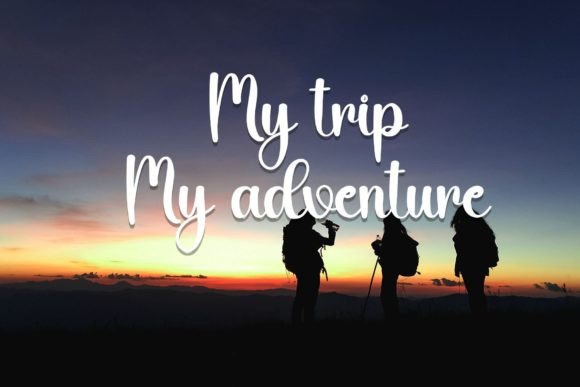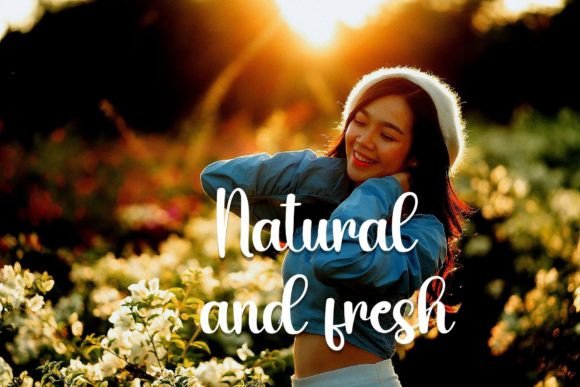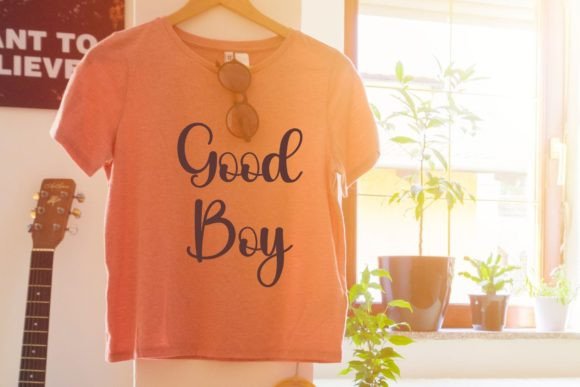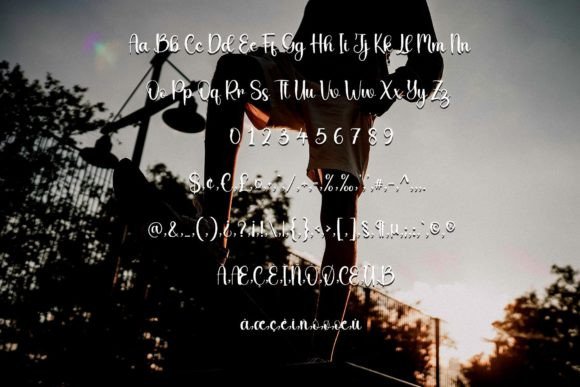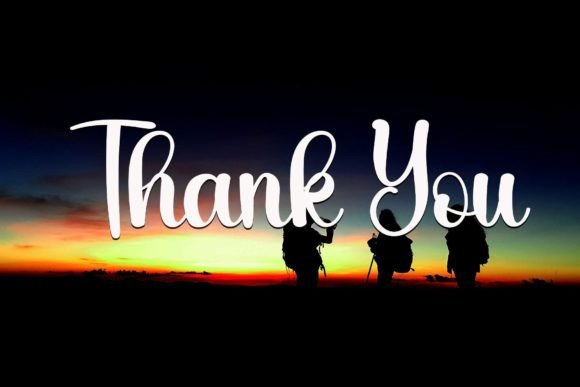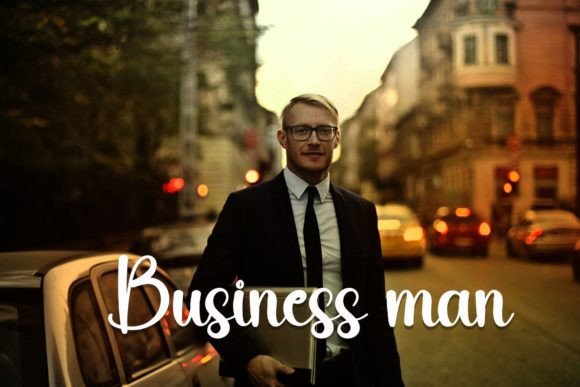
Ready Font
About Ready Font
Ready, a sweet and natural handwritten font, features a distinctive and charming style that seamlessly adapts to a wide range of design projects. With its natural and unique characteristics, this font becomes an incredibly versatile choice, offering endless creative possibilities that are limited only by your imagination.
The handwritten allure of Ready brings an authentic and personal touch to your designs, establishing an inviting and warm ambiance. This versatility allows the font to effortlessly transition between different design contexts, enriching the visual appeal of your projects.
What sets Ready apart is its ability to transcend limitations, serving as a blank canvas for your boundless imagination. Whether you’re crafting casual and friendly designs or more formal and sophisticated applications, this font acts as a flexible tool, enabling you to express creativity without constraints.
The charm of a handwritten font like Ready lies in its capacity to infuse authenticity and individuality into your projects. Beyond being just a font, it transforms into a design element that carries character and personality, ensuring your creations stand out with a natural and effortless beauty.
Exploring the creative possibilities with Ready reveals its seamless integration with various design elements. The free-flowing strokes and unique curves add a distinctive touch, capturing attention and injecting a dose of creativity into your visual communication.
In essence, Ready is more than just a font; it’s an open invitation to unleash your imagination. Its sweet and natural handwritten style creates a delightful aesthetic that elevates the overall appeal of your designs, turning each project into a unique and expressive piece of art. Embrace the limitless potential that Ready offers and let your creativity soar without bounds.